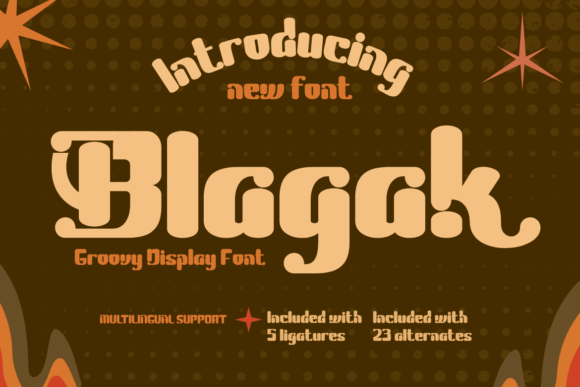
Journey Into the Timeless Beauty of Blagak Font: Where Vintage Charm Meets Modern Design
In a world where design reigns supreme, Blagak Font emerges as a masterpiece that captivates the senses and ignites creativity. This elegant display font, meticulously crafted by twinletter, is a testament to the enduring power of vintage charm blended seamlessly with contemporary design aesthetics.
As you embark on your design odyssey, let Blagak be your guiding light, illuminating your path with its diverse array of characters and captivating alternatives. With Blagak's enchanting presence, your projects will exude an allure that transcends time, leaving an indelible mark on the hearts of your audience.
Picture this: a vintage poster adorned with Blagak's timeless glyphs, whispering tales of forgotten eras. Or, envision an eye-catching logo, its letters dancing in perfect harmony, commanding attention in a sea of mediocrity. The possibilities are endless, as Blagak's versatility knows no bounds.
But what truly sets Blagak apart is its PUA encoding, a magical key that unlocks a treasure trove of glyphs and ligatures, empowering you to unleash your creativity without limits. With Blagak at your fingertips, you hold the power to transform ordinary designs into mesmerizing masterpieces.
So, dear design enthusiasts, embrace the allure of Blagak Font. Let its vintage charm infuse your projects with a touch of nostalgia, while its modern flair propels them into the future. Together, embark on a journey of design excellence, where every creation tells a story and leaves a lasting impression.